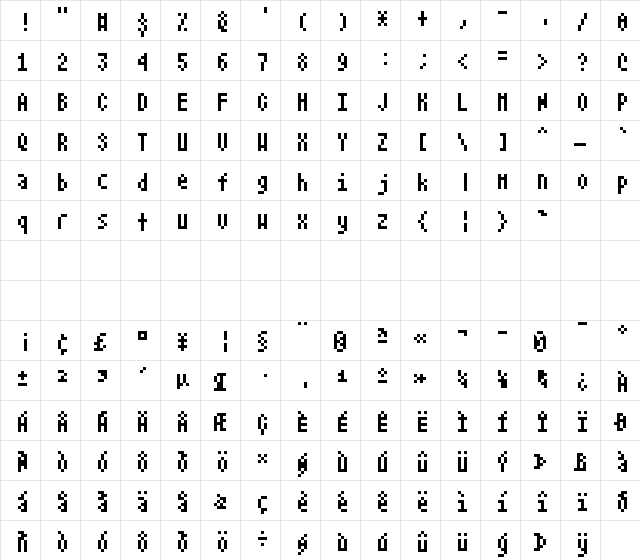
Atari Small
Design Context for Atari Typeface
Atari offers clean, dependable letterforms without strong stylistic allegiance, making it a practical choice for designers who need flexibility.
Pro Tip: Pair Atari with a font of contrasting weight or personality to build a more expressive typographic hierarchy.